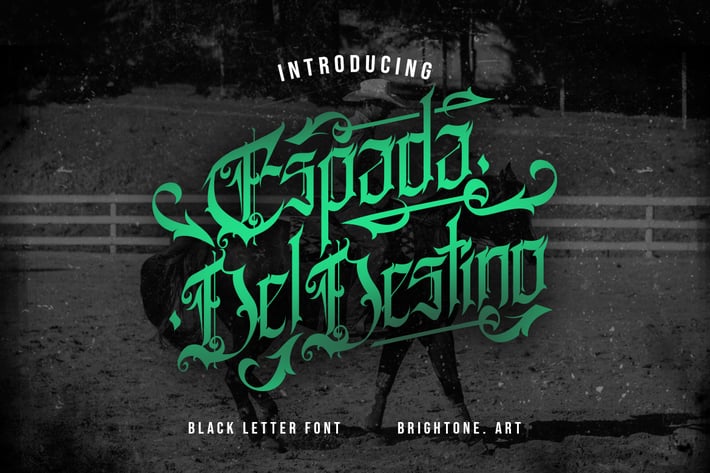
Espada Del Destino - Gothic Type Font
ESPADA DEL DESTINO is blackletter tattoo font includes uppercase letters, numerals, a large range of punctuation and accented. Professional blackletter font with tattoo style for your logo lettering, shirt design, logo tattoo studio, tattoo design, branding, etc